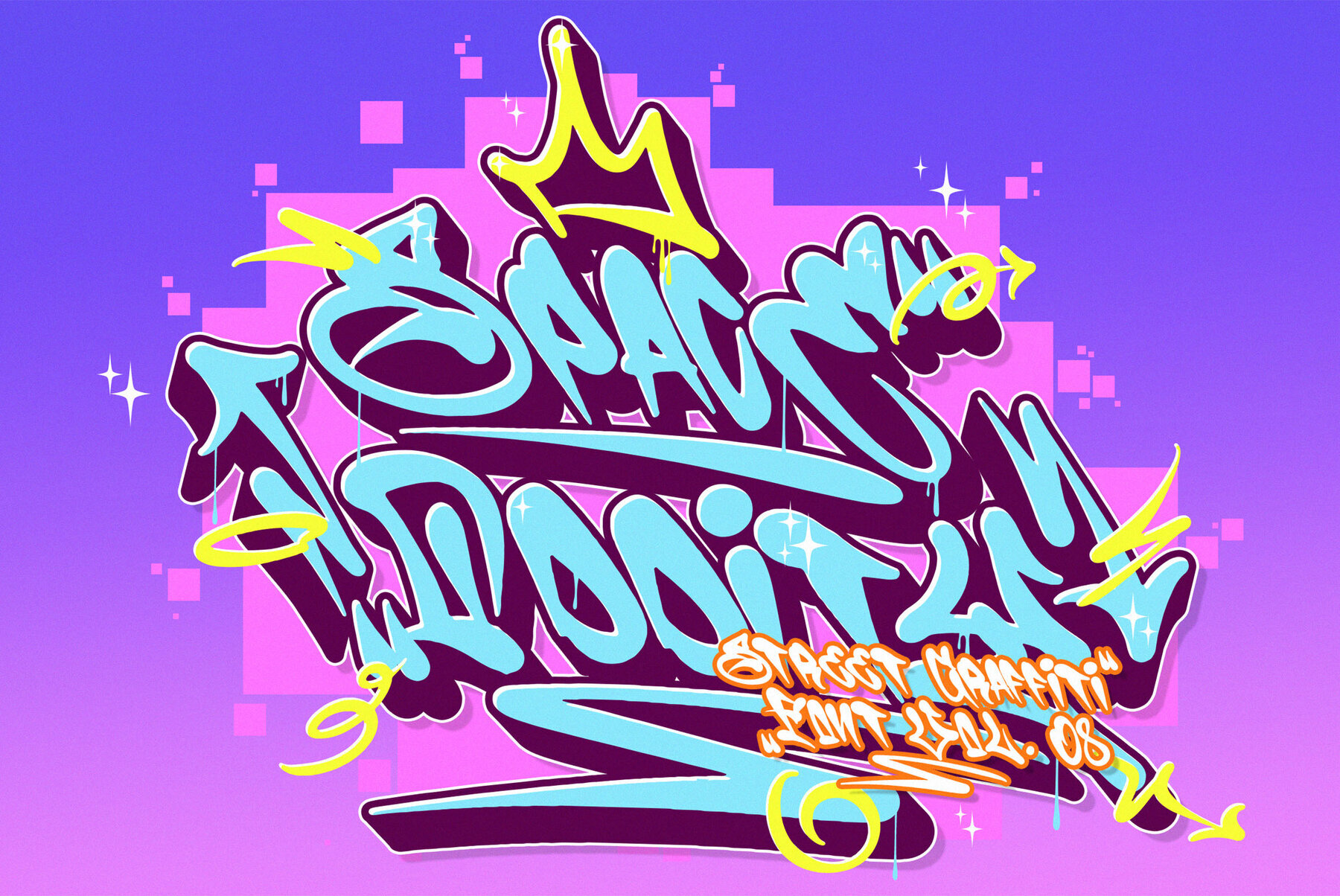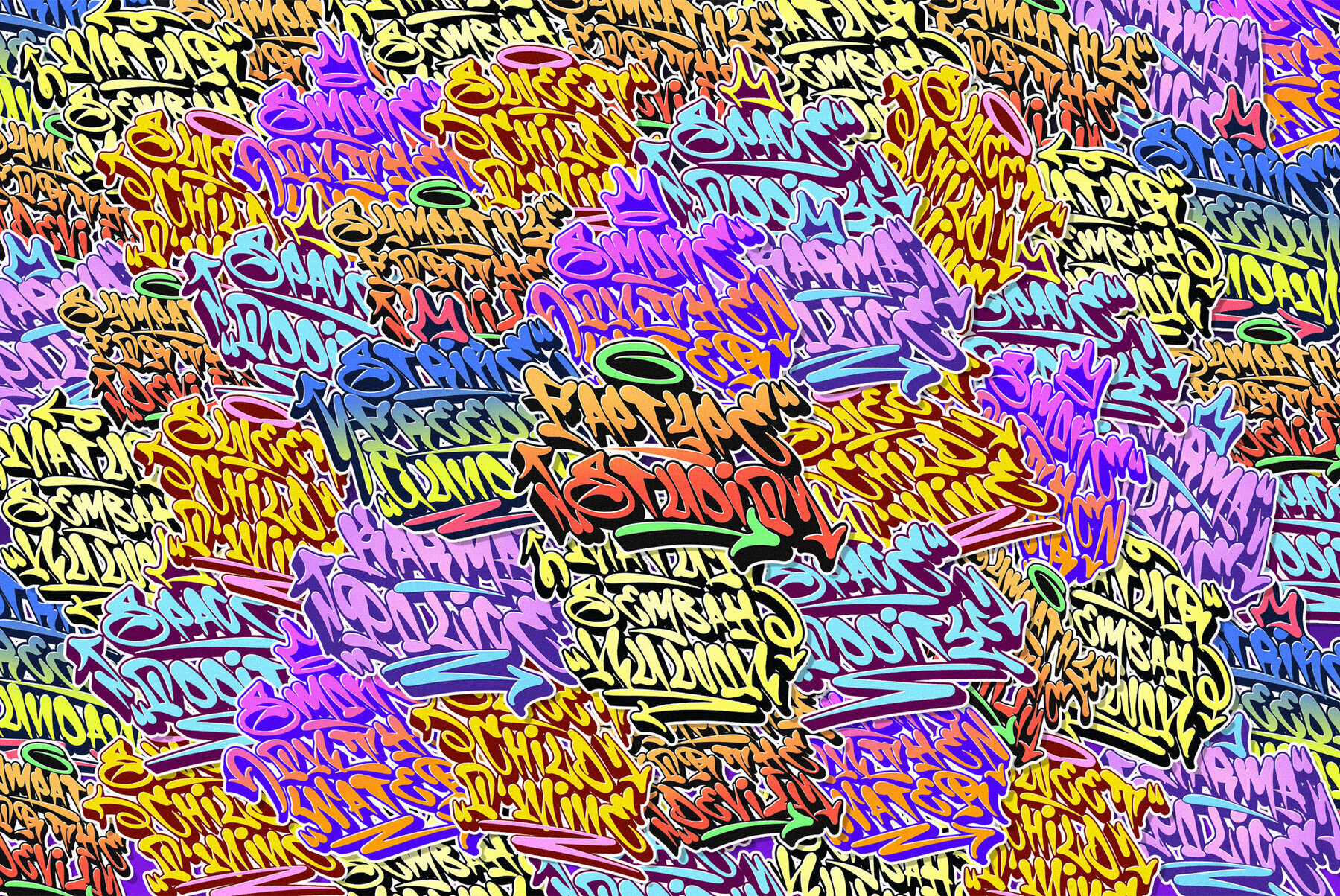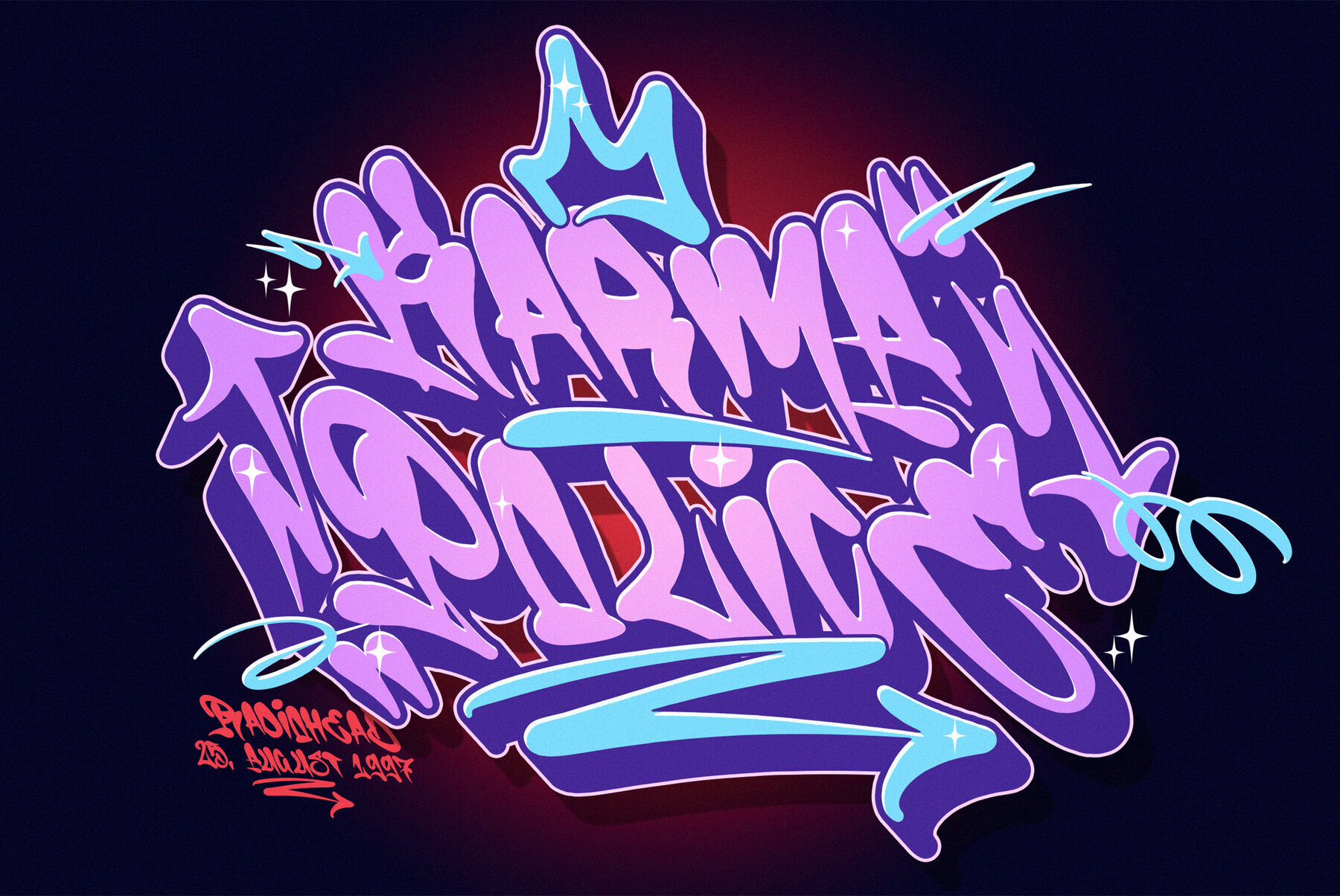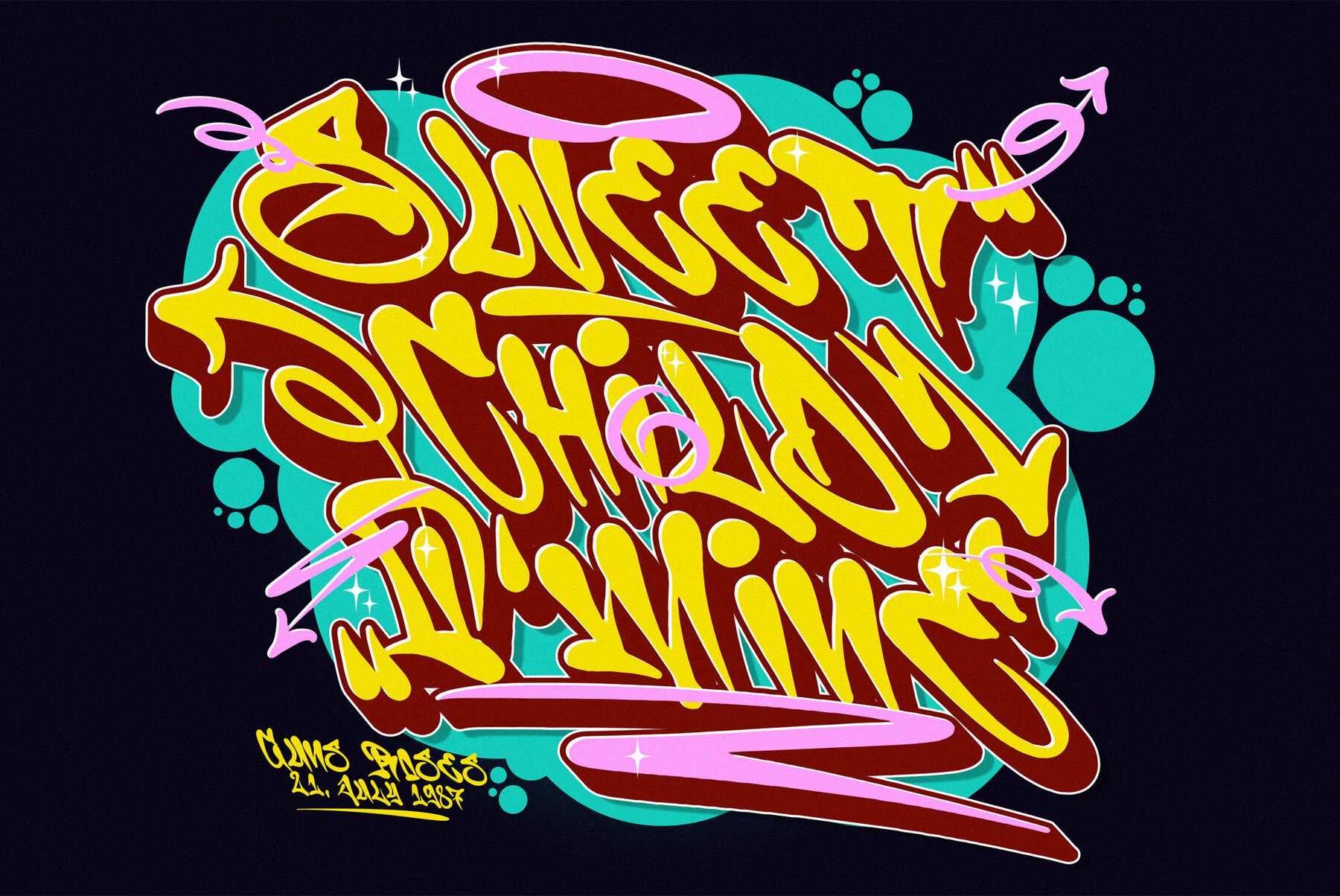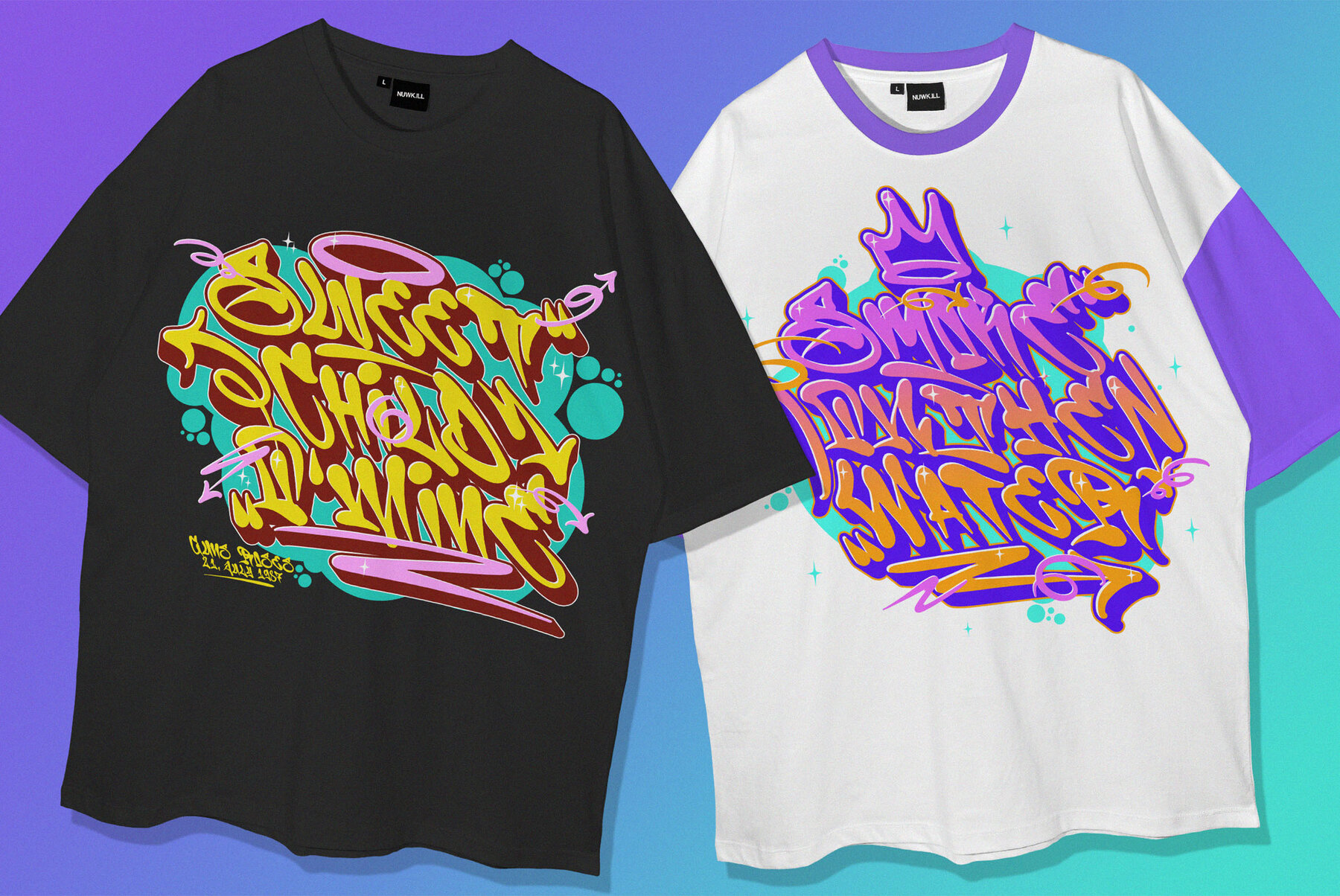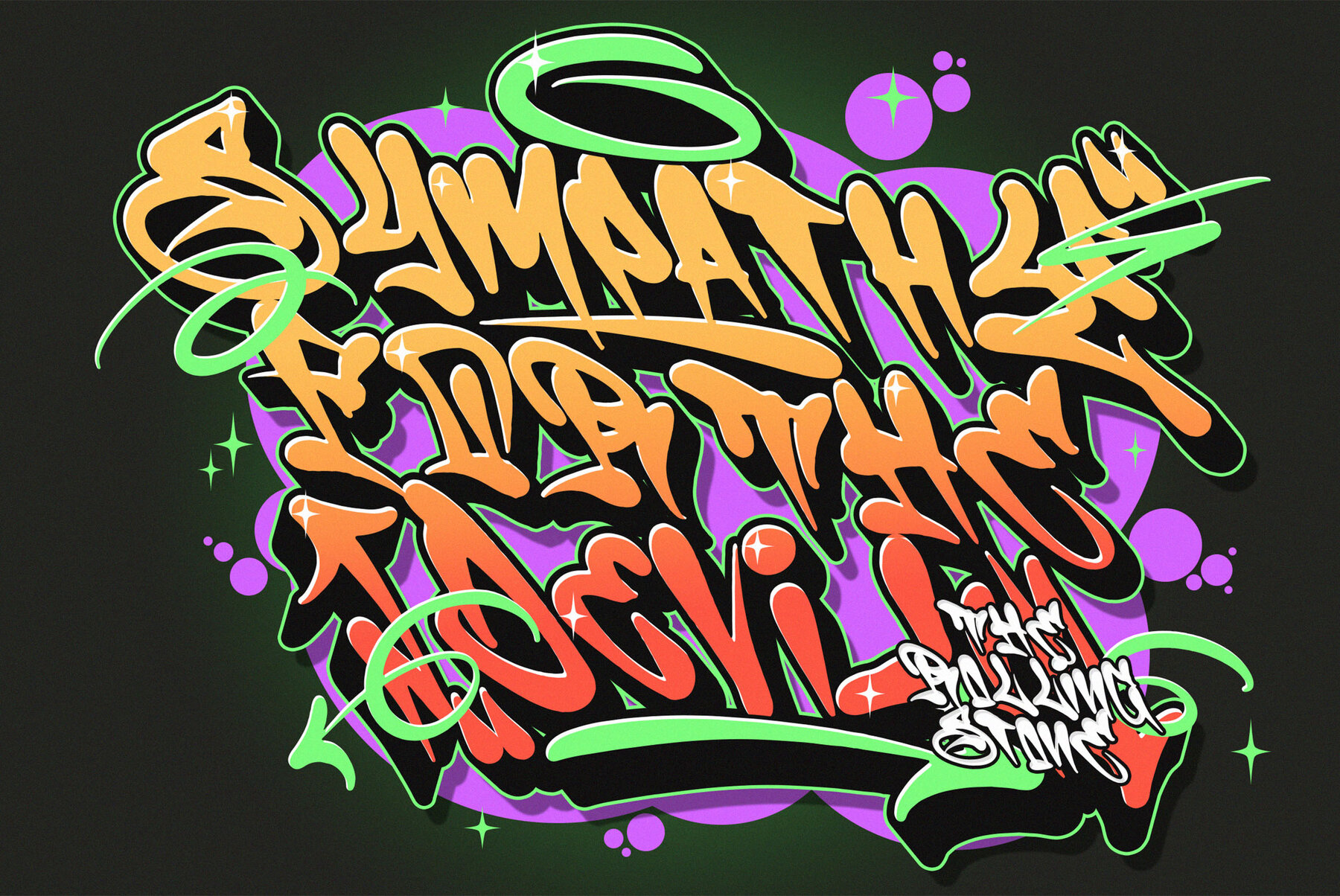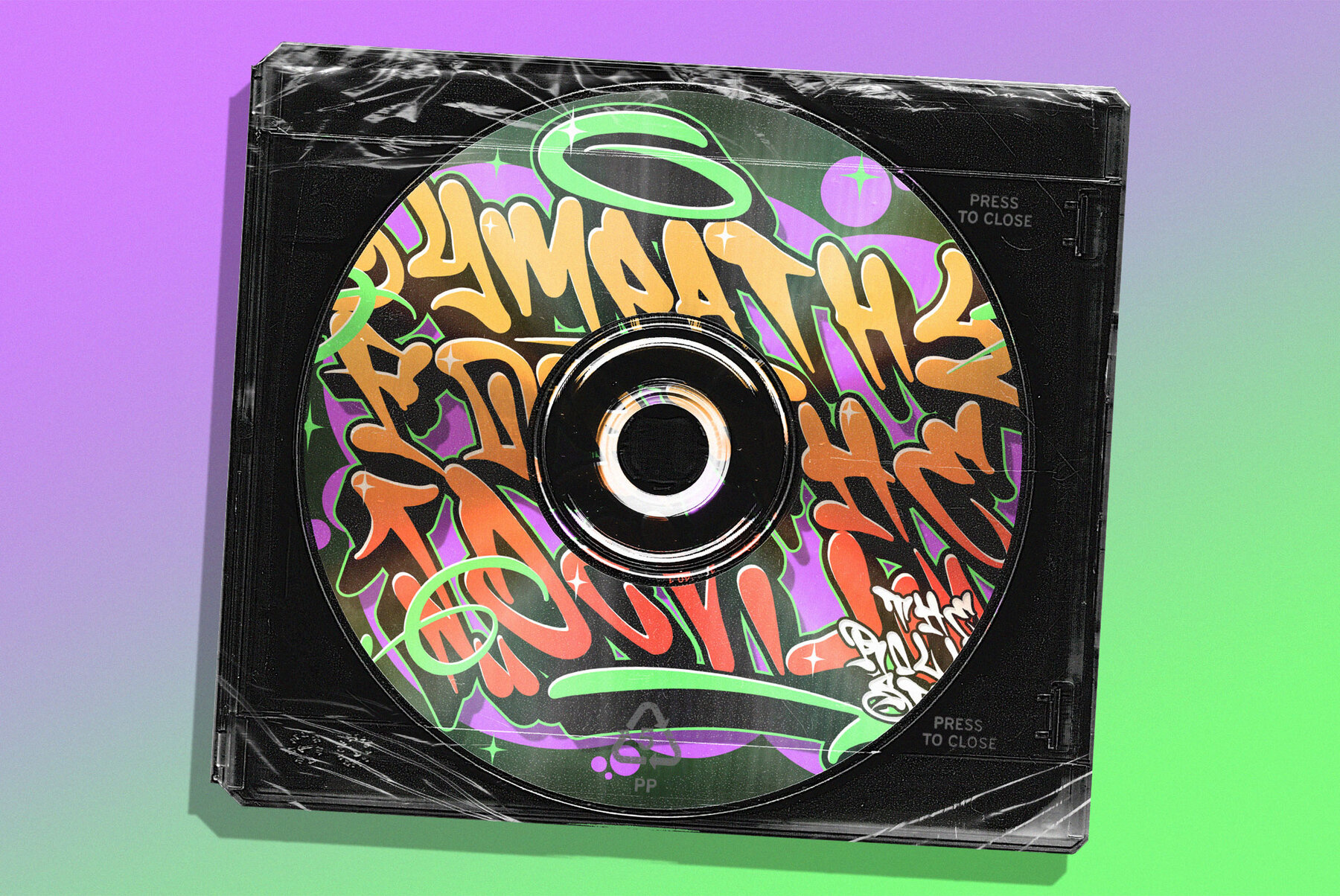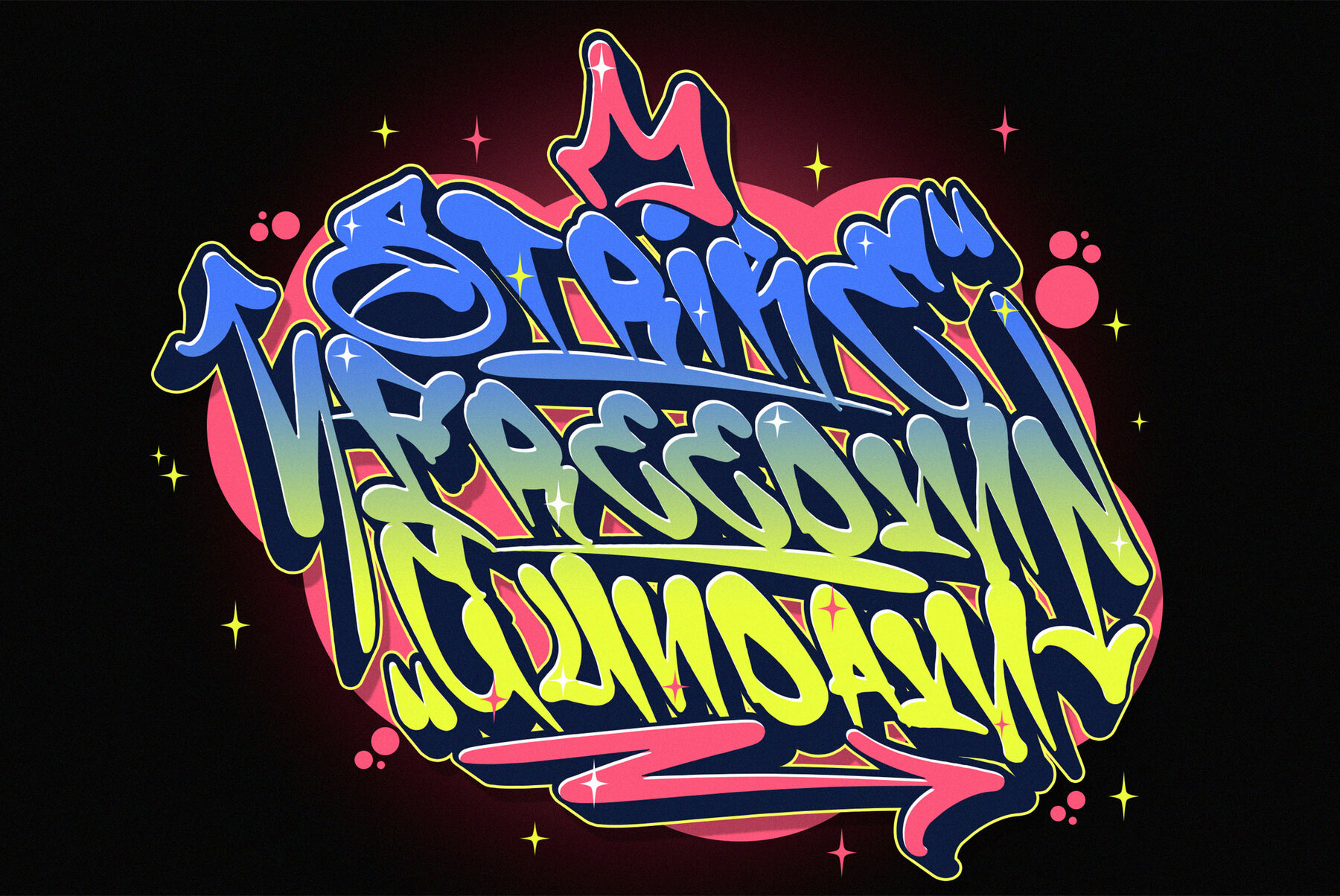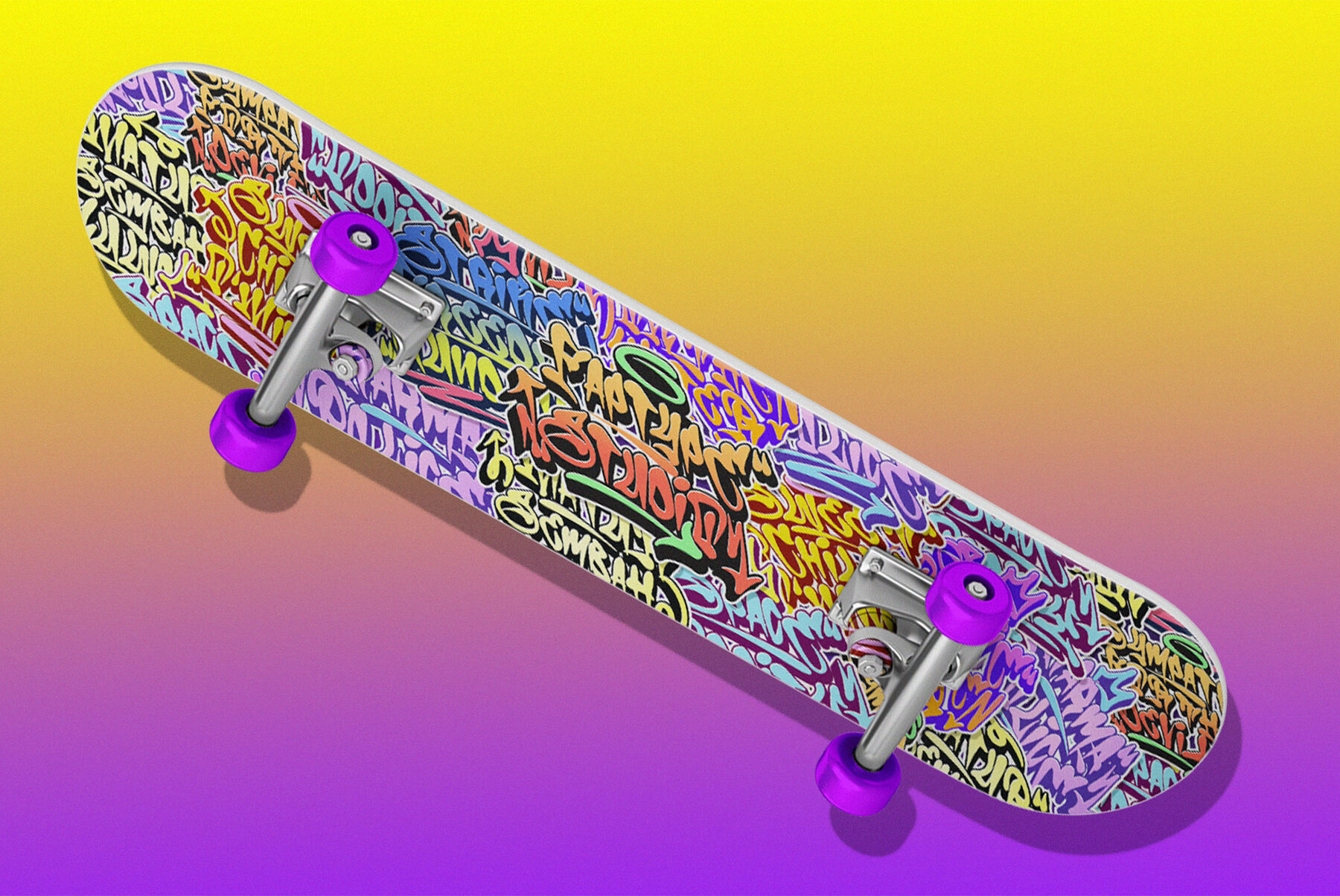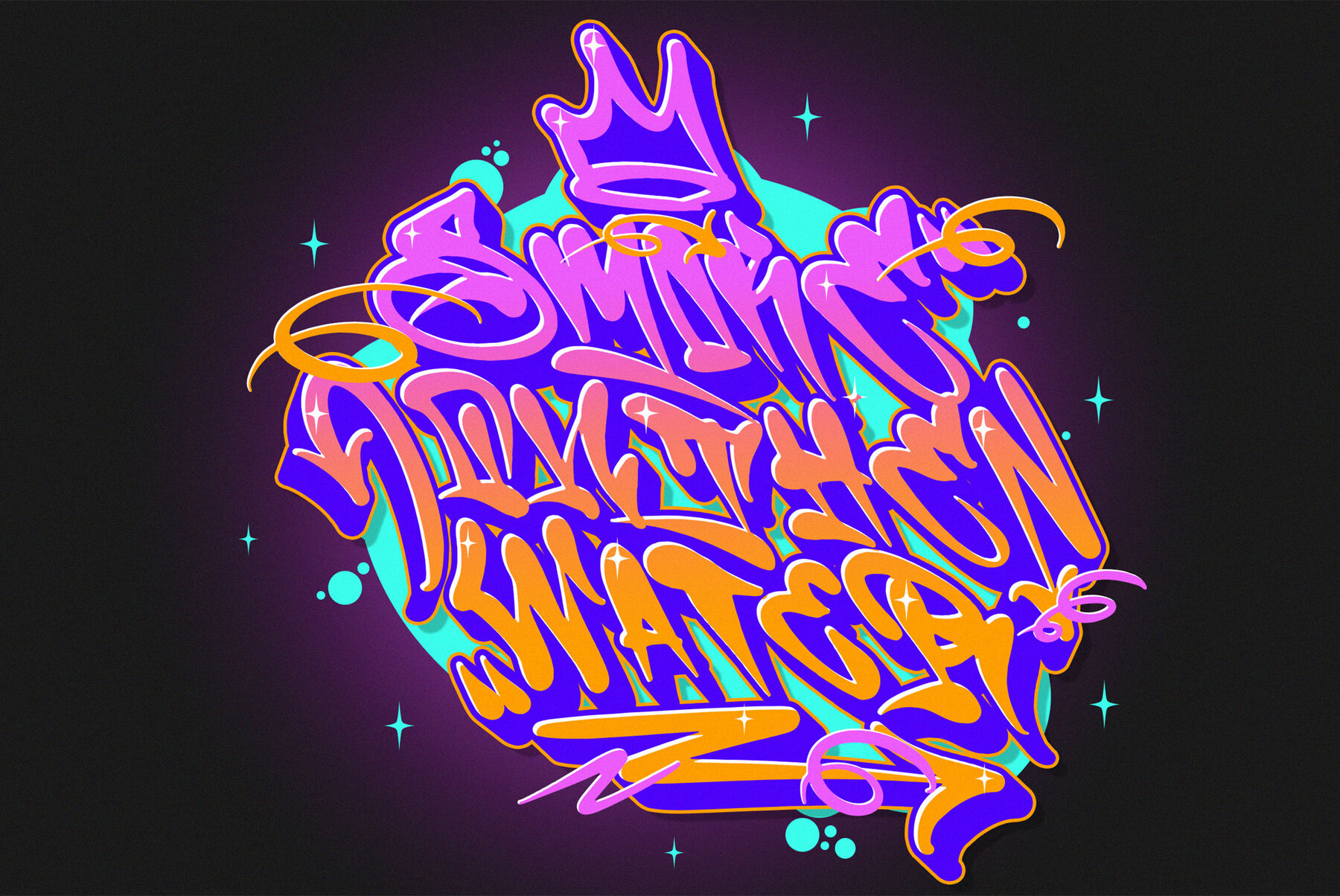
Space Oddity Graffiti Font
Space Oddity is a bold and innovative street graffiti font that captures the essence of urban art with a futuristic twist. This unique font supports multiple foreign languages, ensuring your designs resonate across the globe. Featuring both uppercase and lowercase letters, Space Oddity offers flexibility and impact for any creative project. Inspired by the dynamic and rebellious spirit of street tagging, Space Oddity brings your designs to life with its distinctive style. The font is perfect for graffiti artists and enthusiasts, offering a visually striking and entertaining way to write. Space Oddity also includes an array of street graffiti ornaments, adding authenticity and artistic flair to your work. Perfect for: Take your creativity to the next level with the extruded version of Space Oddity, allowing you to create stunning 3D street-style graffiti projects. This feature adds depth and dimension, making your designs truly pop and bringing an additional layer of realism and boldness to your artwork. Unleash your creativity with Space Oddity, the ultimate street graffiti font for those who dare to push boundaries and make a statement. Let your designs transcend the ordinary and enter a new dimension of urban artistry. Space Oddity features: